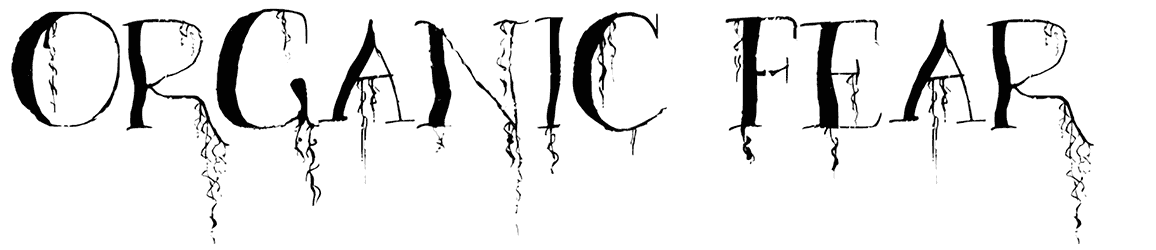
Organic Fear Font
Organic Fear is the best font that can have a significant effect in conveying a spooky message. This zombie font is a combination of fragile letters that look like they were scratched by a cannibal, with blood and dirt d…
Organic Fear is the best font that can have a significant effect in conveying a spooky message. This zombie font is a combination of fragile letters that look like they were scratched by a cannibal, with blood and dirt dripping from them.
So if you want to attract more customers, it’s time to add this new font. Now it’s no longer surprising that your Halloween posters, brochures, and tickets will attract the audience’s attention even without numbers and small letters.